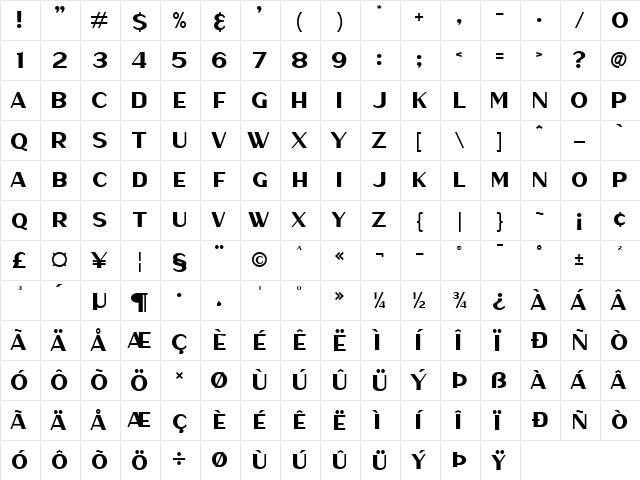
Haarlem Sans Regular
| Foundry | Twicolabs Fontdation |
| Designer | Twicolabs Fontdation |
Design Context for Haarlem Sans Typeface
Haarlem Sans is a composed and adaptable typeface that performs quietly and consistently across a wide range of design contexts.